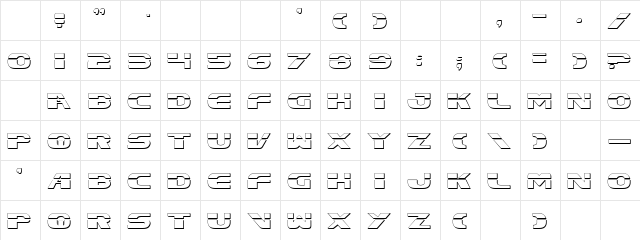
Complete Excelsior Laser Outline glyph index. Displaying only characters natively supported by Excelsior Laser Outline font.
Excelsior Laser is built around its visual character rather than neutral utility - its distinctive forms are designed to make an impression at display sizes.
Font Pairing: Pair with a clean neutral sans-serif for body copy to let Excelsior Laser's character lead without overwhelming the composition.
Pro Tip: Use Excelsior Laser exclusively at display sizes - it was designed to be seen, not read at length. Let a neutral companion handle body copy.